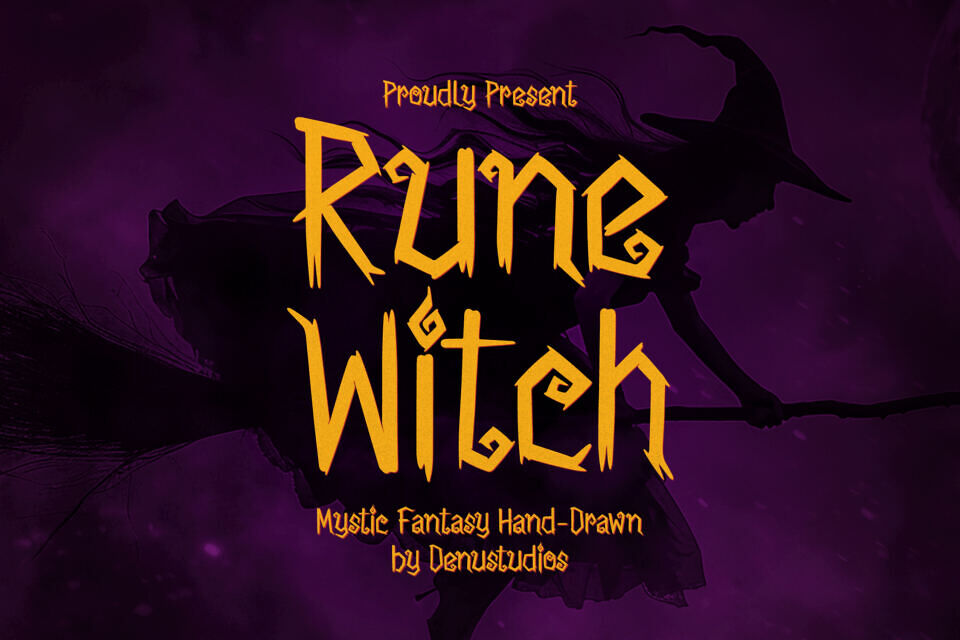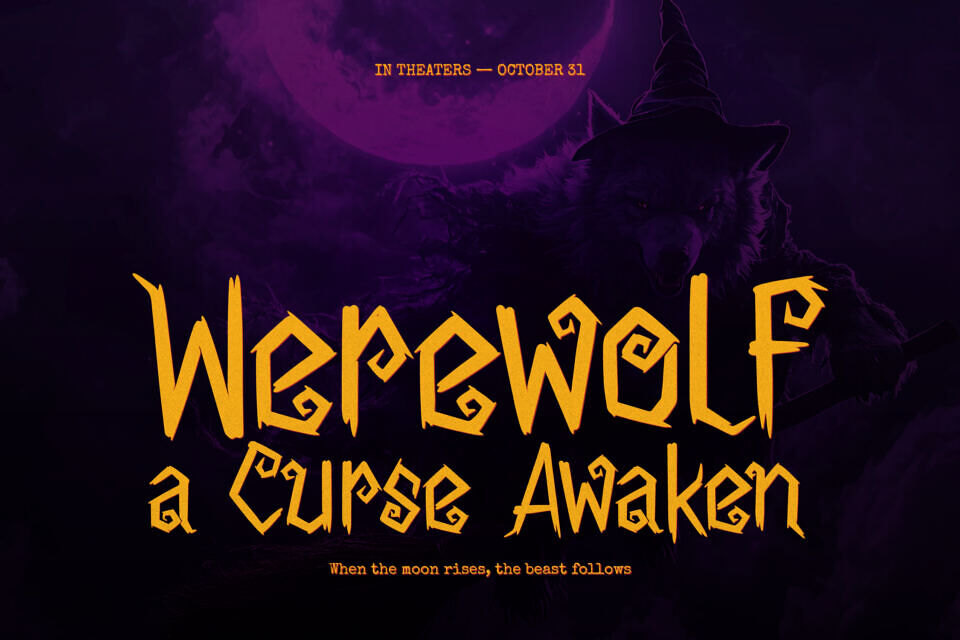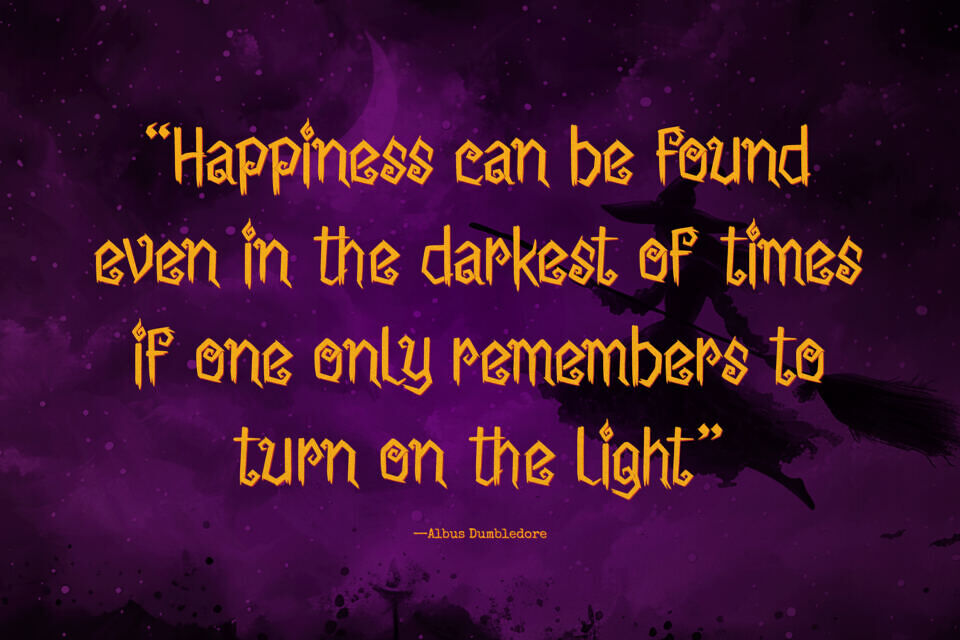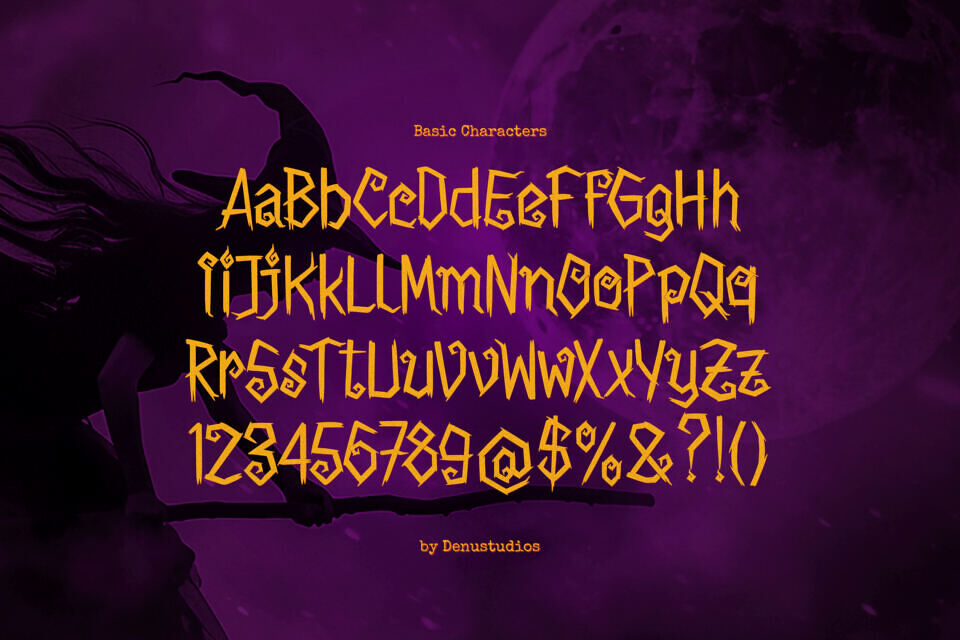
Unleash the magic in your designs with Rune Witch, a mystic fantasy hand-drawn font that captures the spellbinding essence of ancient enchantments. With its sharp, jagged edges and irregular, hand-inked strokes, this typeface feels like it was plucked straight from a weathered grimoire or a secret forest altar.
Rune Witch is the ultimate choice for creators looking to add a supernatural edge to their work. Whether you are designing captivating book covers, immersive game interfaces, spooky Halloween posters, or mystical branding, this font provides a dark, whimsical aesthetic that is both mysterious and full of character.